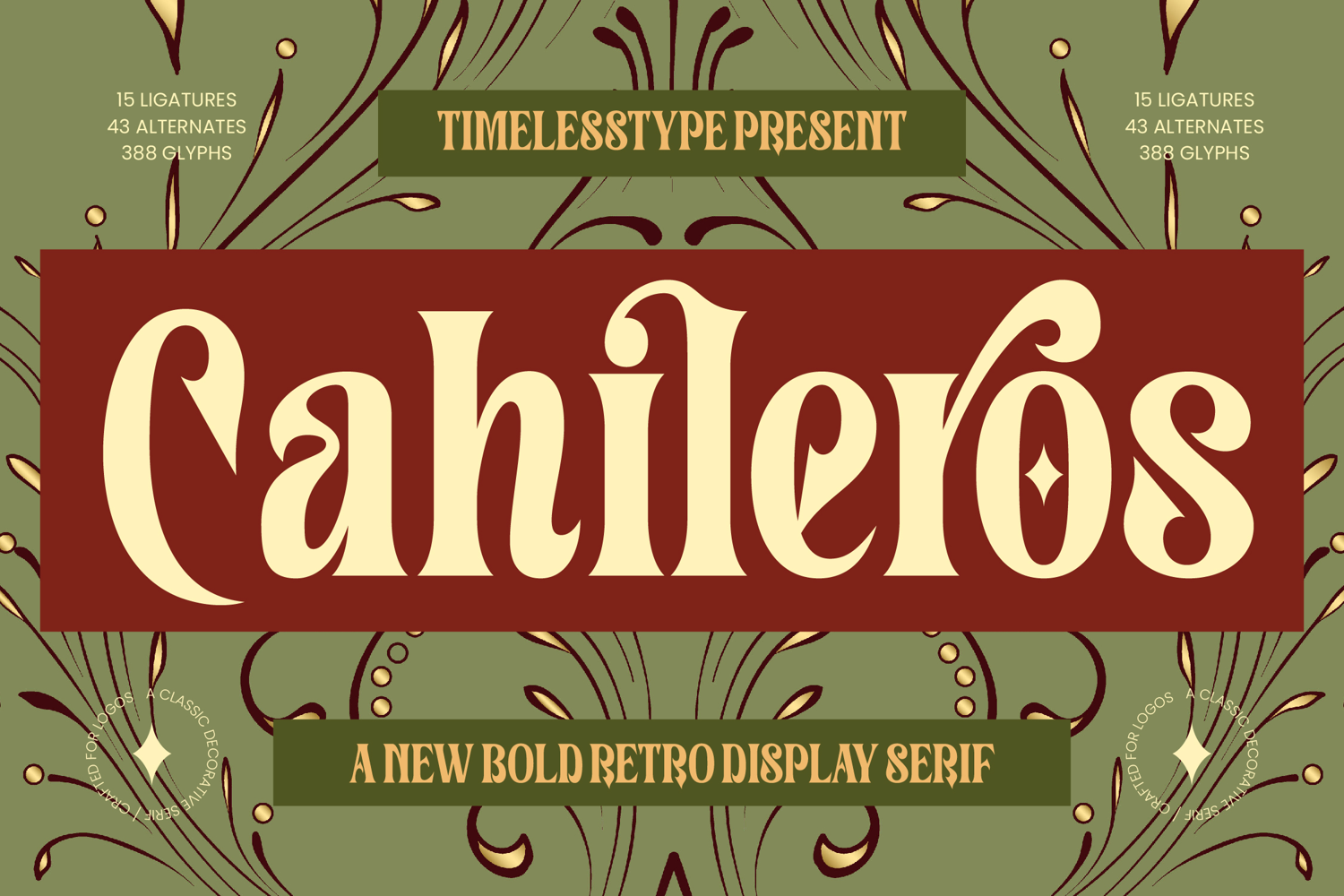
Cahileros - Bold Retro Display Serif
Cahileros - Bold Retro Display Serif, a stunning typeface that fuses the maximalist flair of the 1970s with the sophisticated curves of Art Nouveau. This is a bold retro display serif crafted specifically to command attention. Its heavy weight and high-contrast strokes deliver maximum presence, ensuring your headlines and branding materials are immediately memorable and aesthetically rich.